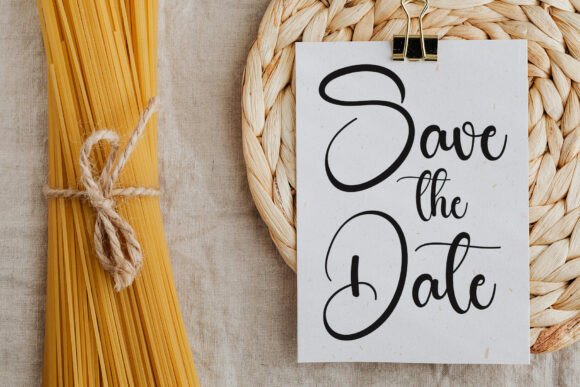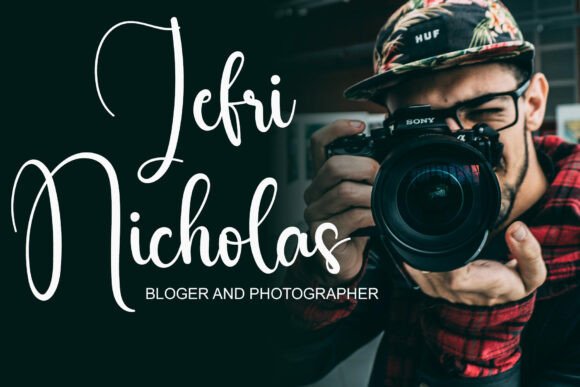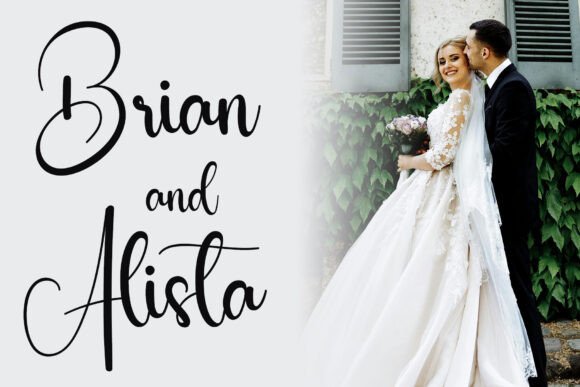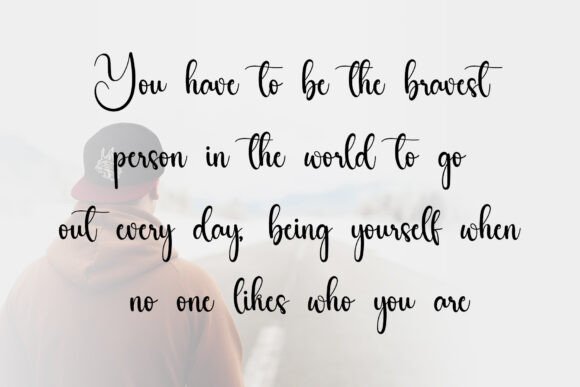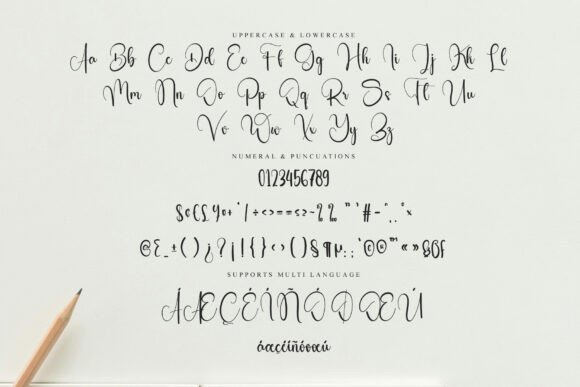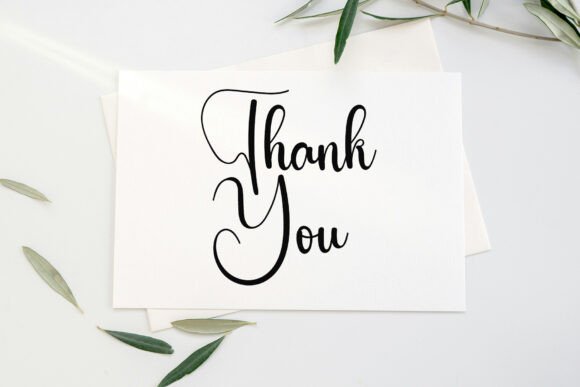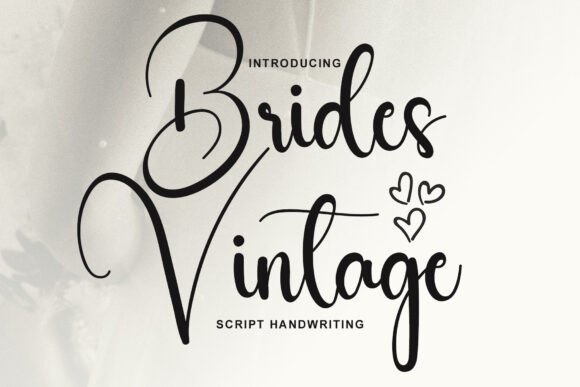
Brides Vintage – A Sweet & Elegant Script Font
I’ll never forget the moment I stumbled upon the perfect font for a wedding invitation project. I had been searching for hours, trying out font after font, but nothing seemed quite right. That was until I discovered Brides Vintage – a whimsically charming handwritten script font that blends playfulness with refined elegance. In this article, I’ll share my experience with Brides Vintage, its features, and how to make the most of this beautiful font in your designs.
An Honest Review of Brides Vintage
As a designer, I’m always on the lookout for fonts that can elevate my projects and make them stand out. Brides Vintage has become a go-to font in my collection, and here’s why:
• ✨ Smooth, flowing strokes that give it a warm and inviting feel
• ✅ Elegant and refined without being too formal or stuffy
• 🎉 Perfect for a variety of design projects, from branding and invitations to logos and more
However, no font is perfect, and Brides Vintage does have a few quirks:
• 🤔 Limited use of uppercase letters can make it tricky to use for headings or titles
• ⚠️ Some characters may not work well in certain contexts, such as in combination with other fonts or in justified text
The Story Behind Brides Vintage
Brides Vintage was designed with the intention of creating a font that captures the essence of vintage romance. The designer, inspired by classic wedding invitations and elegant script fonts, set out to create a font that’s both whimsical and refined. The result is a beautiful, elegant script font that’s perfect for a variety of design projects.
What is Brides Vintage? Brides Vintage is a sweet & elegant script font that’s perfect for branding, invitations, logos, and more.
Is Brides Vintage suitable for body text? While Brides Vintage is beautiful, it’s best suited for display text or headings. For body text, a clearer font may be more suitable.
Does Brides Vintage have any special features? Yes, Brides Vintage has a range of OpenType features, including ligatures, stylistic alternates, and glyphs.